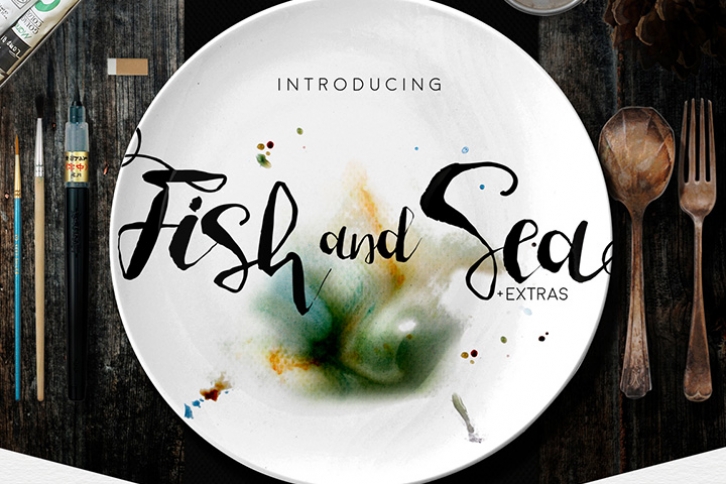
Fish and Sea is a beautiful font that was designed by FontArtica. It's a great choice for designers and creatives who need such a font. It was released on September 28, 2016 and the file size is 10.79 MB. Fish and Sea may give a more youthful, expressive and casual look to your project. It is a very beautiful, refined, elegant, and high-quality font.